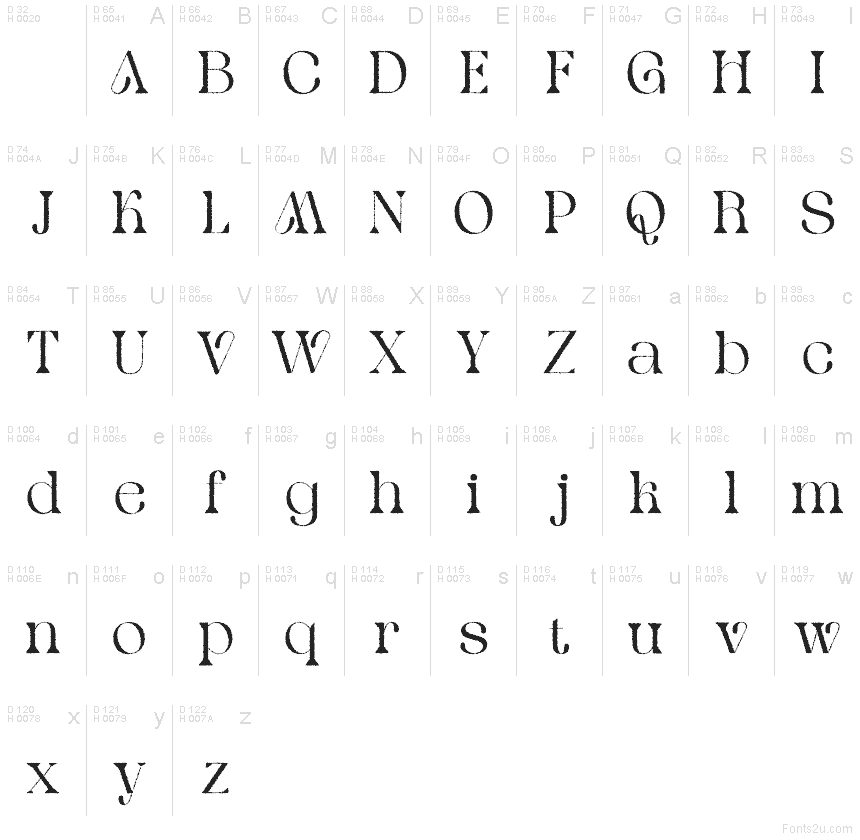
Qianzy Rough font is the final handiwork of Craft Supply Co. and it carries a contemporary yet classic feel. Its typography is as elegant as the other members of the family, but its characters enjoy a textured appearance that adds to their artistic flair. Sometimes, perfection is truly reached by accepting imperfections, and this free serif font celebrates slightly irregular contours.
Those who think alike are going to find this familiar-looking typeface suitable for artists’ logos, children’s stories covers with an illustration-added design, leadership manifestos, healthy food packaging design plans (especially organic products), natural-care labels with ingredient lists, or unique book titles for fantasy novels and alike.